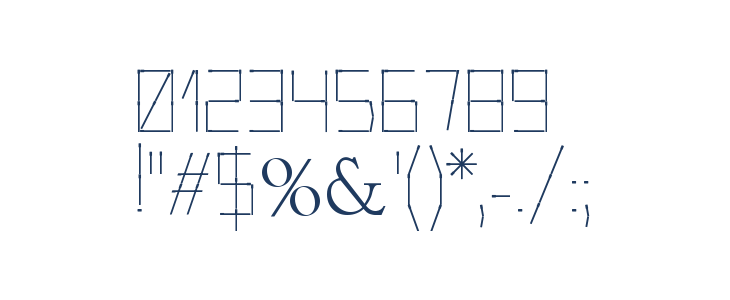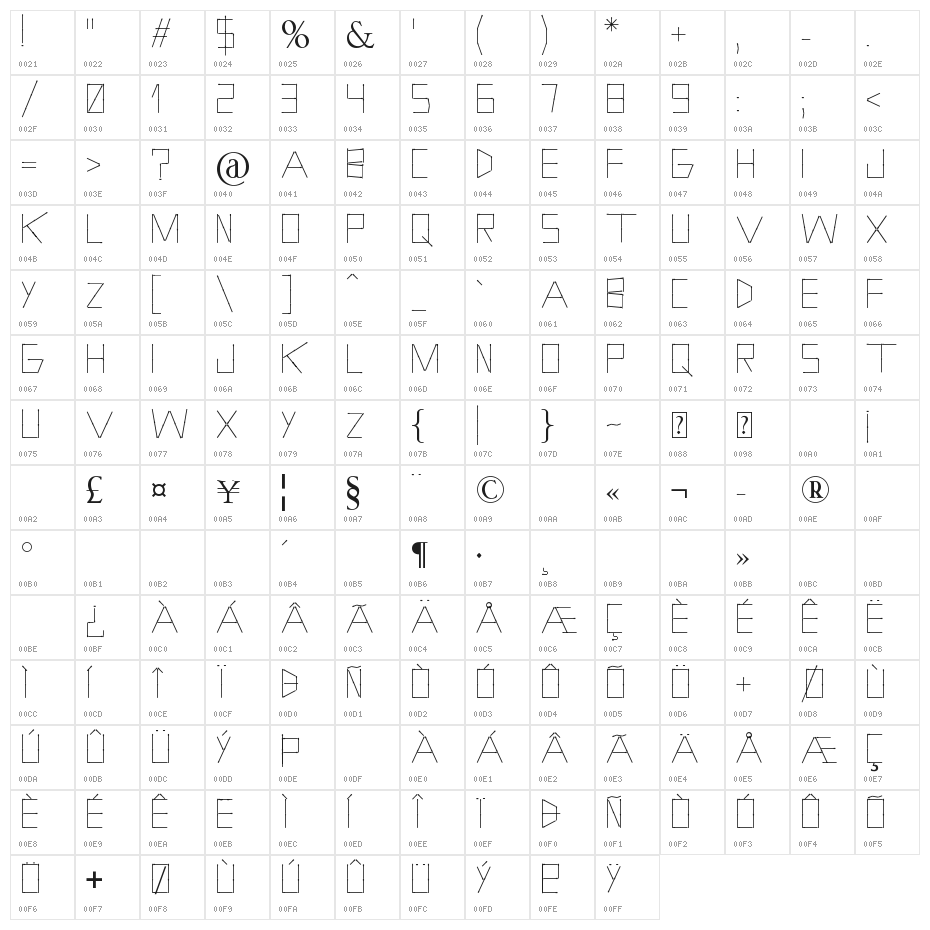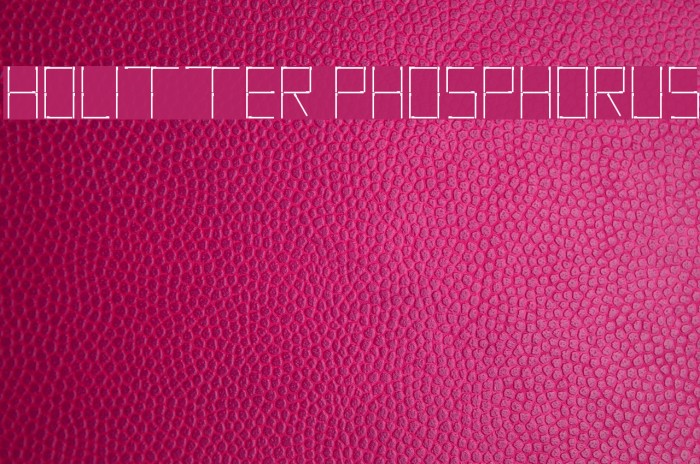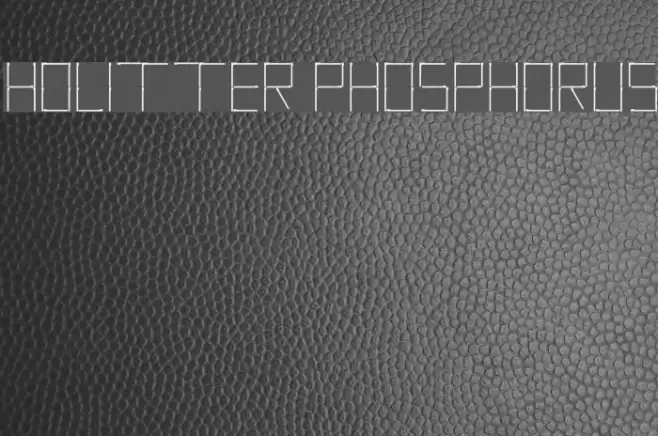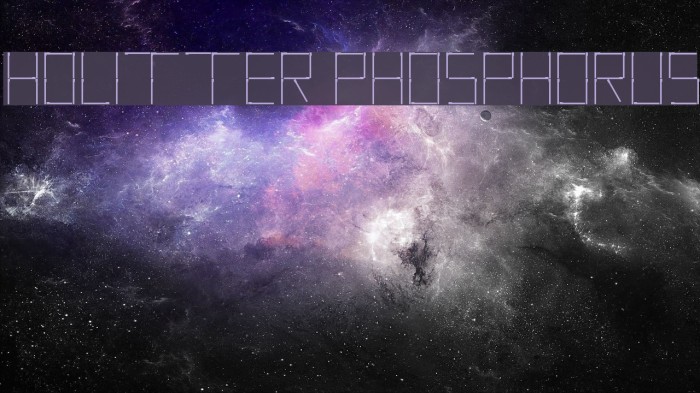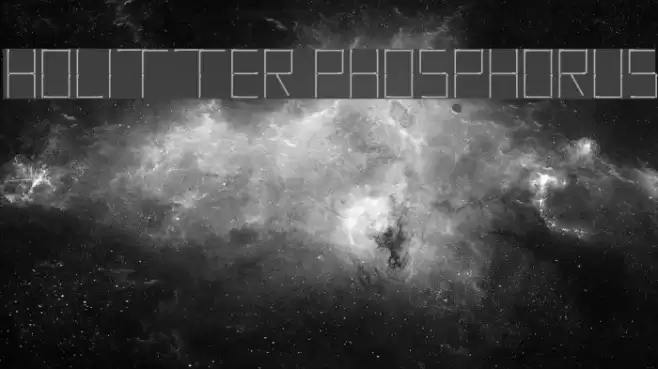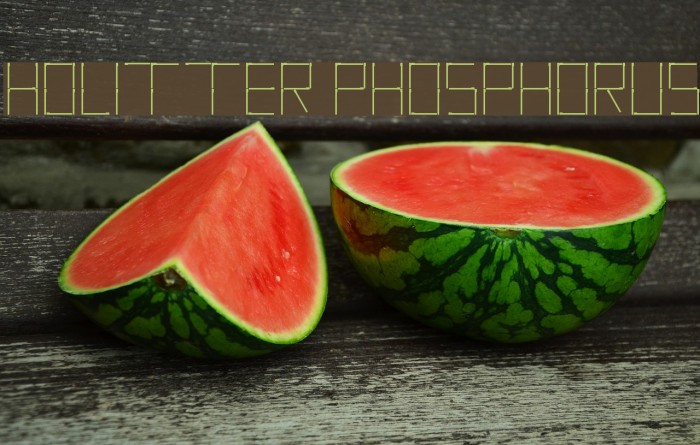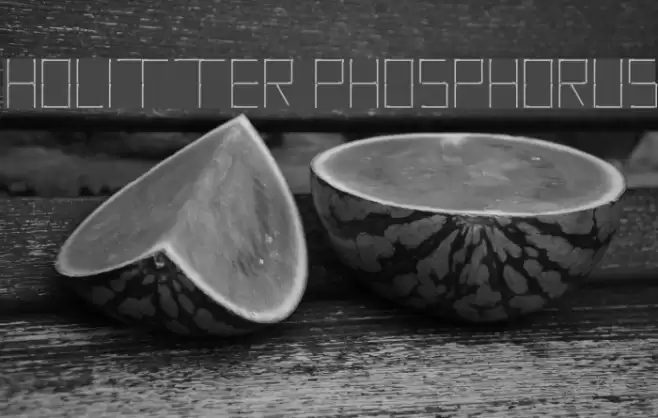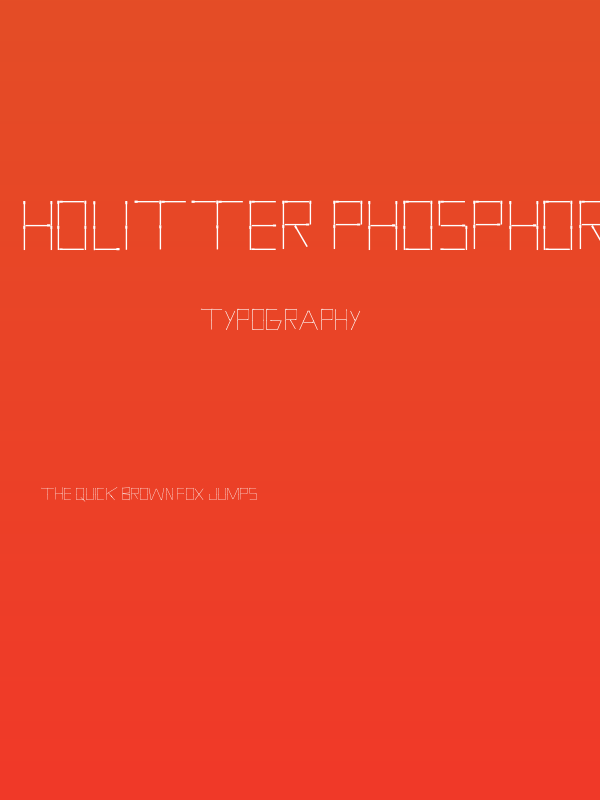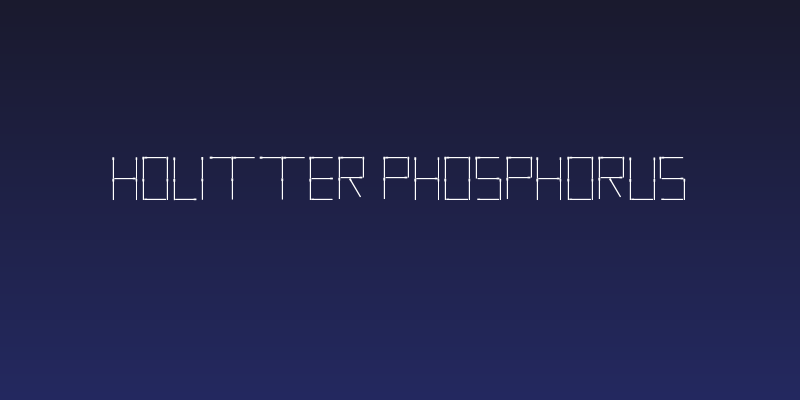
Holitter Phosphorus Font
Holitter Phosphorus Description
This font features a geometric and angular design, characterized by its sharp, straight lines and minimal curves. The uppercase and lowercase letters maintain a consistent height, creating a uniform appearance. The numerals are distinct and align well with the overall style, while the special characters complement the font's angular aesthetic. The font's structure is reminiscent of architectural blueprints or technical drawings, giving it a modern and industrial feel. Its clean and precise lines make it suitable for projects that require a futuristic or tech-inspired look.
Proposed ProjectsIdeal for technology branding, architectural designs, modern posters, and digital interfaces.